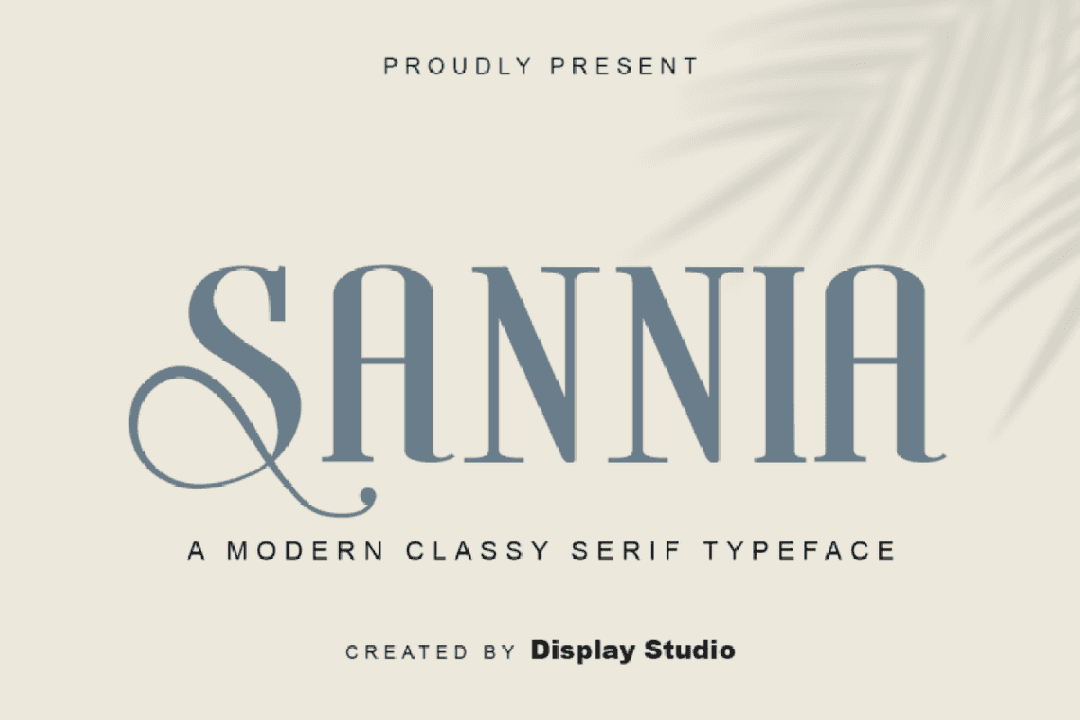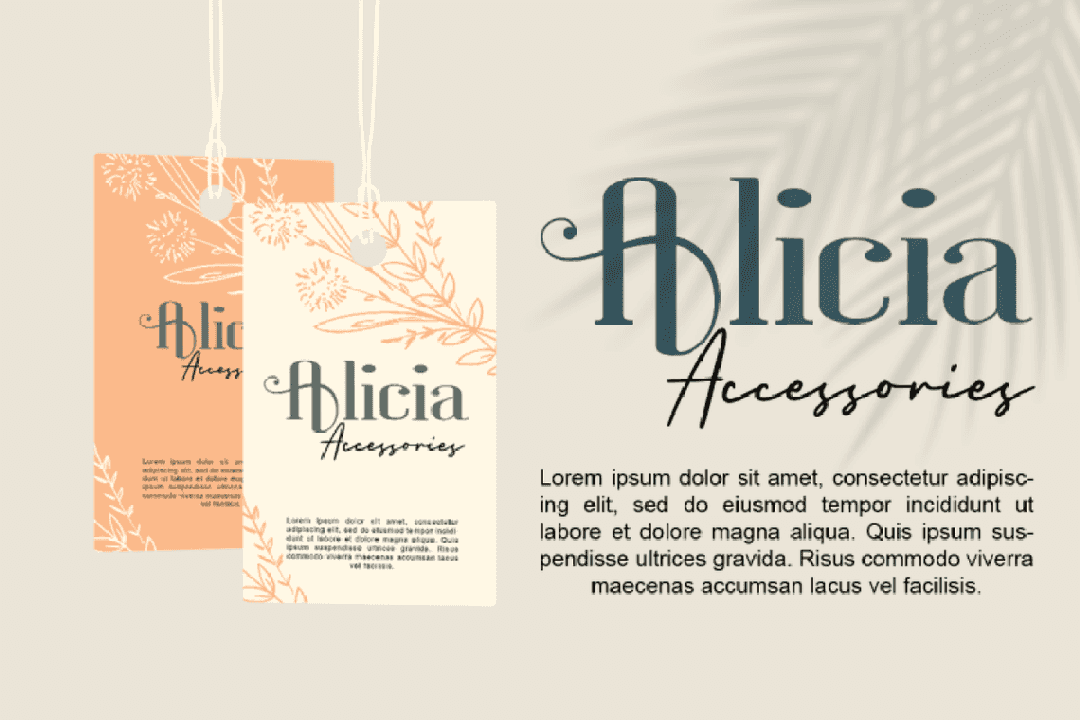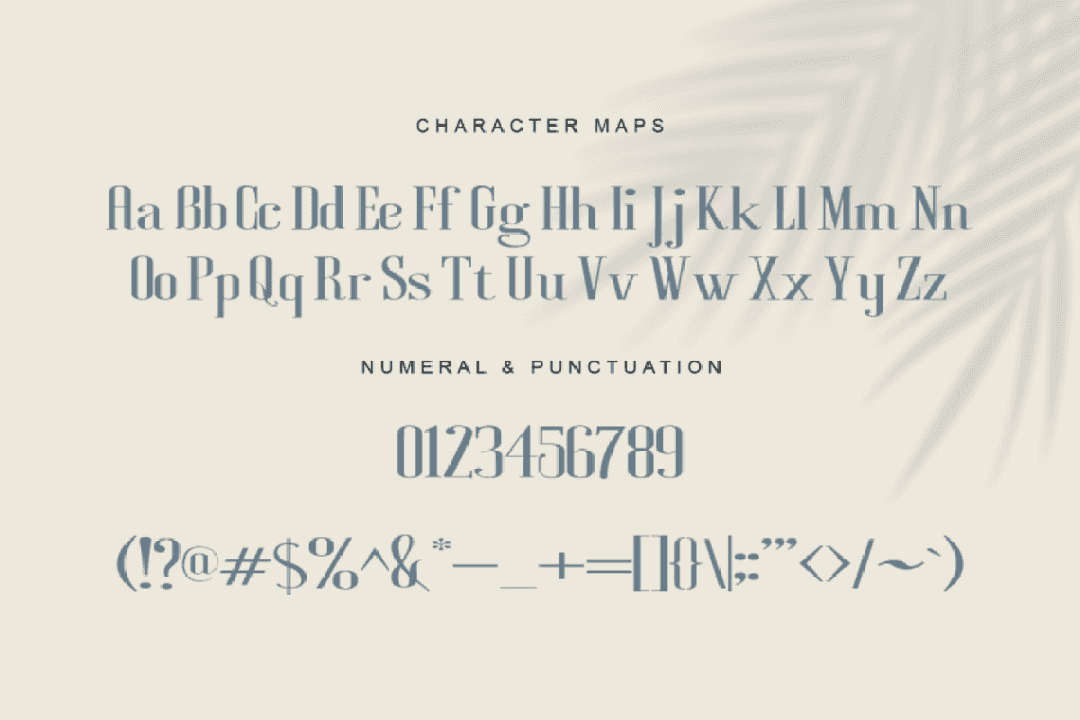
Sannia Font is an elegant serif typeface perfect for branding logos, greeting cards, invitations and any other creative endeavor. Boasting multilingual and style capabilities this typeface will enhance any aesthetic you create while PUA encoding allows access to all characters and styles easily!